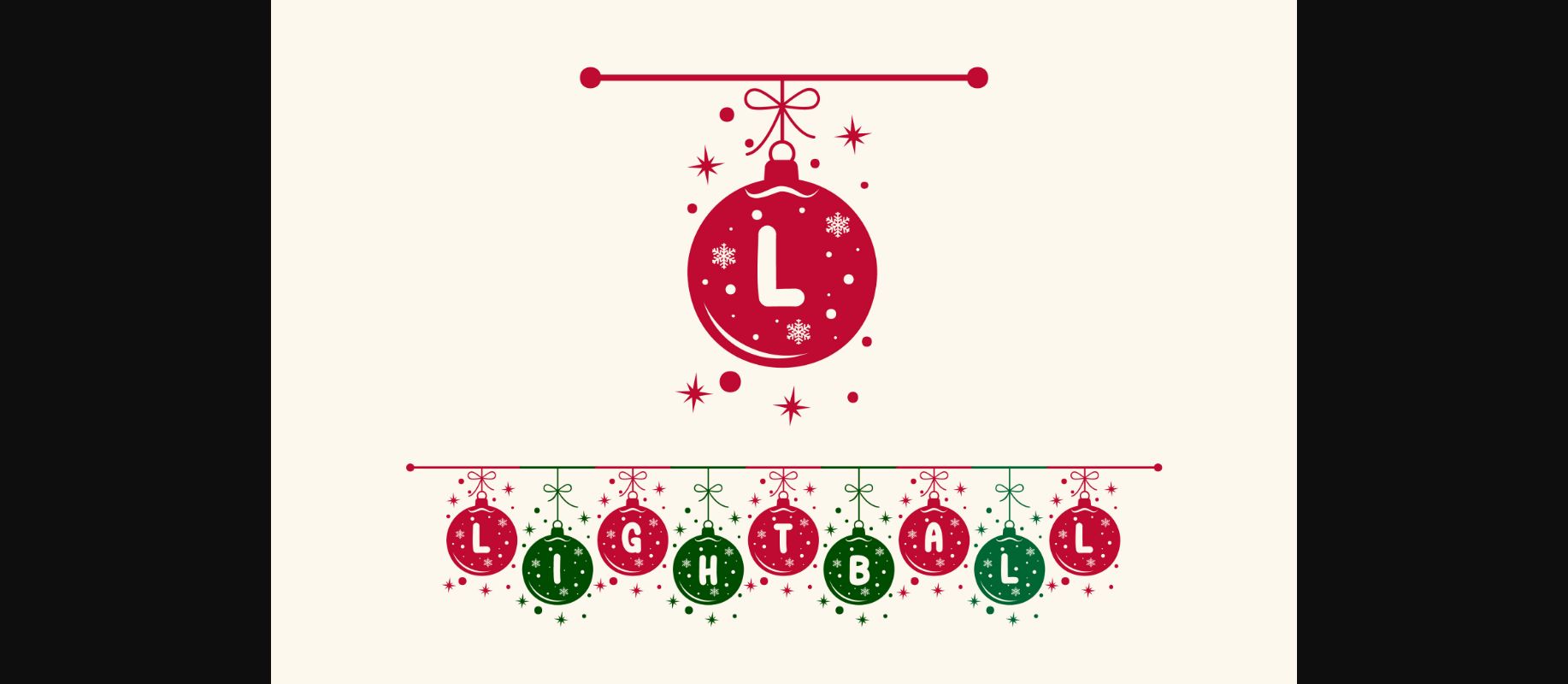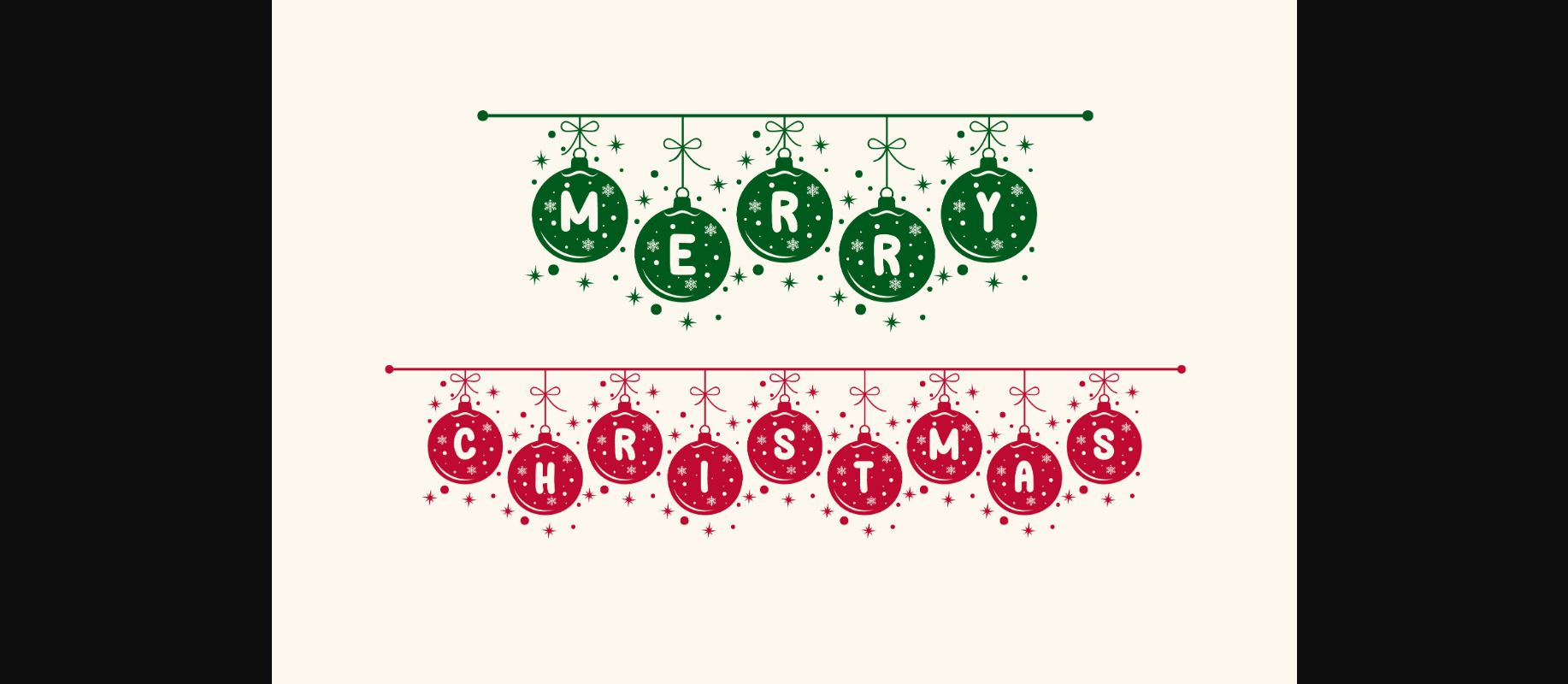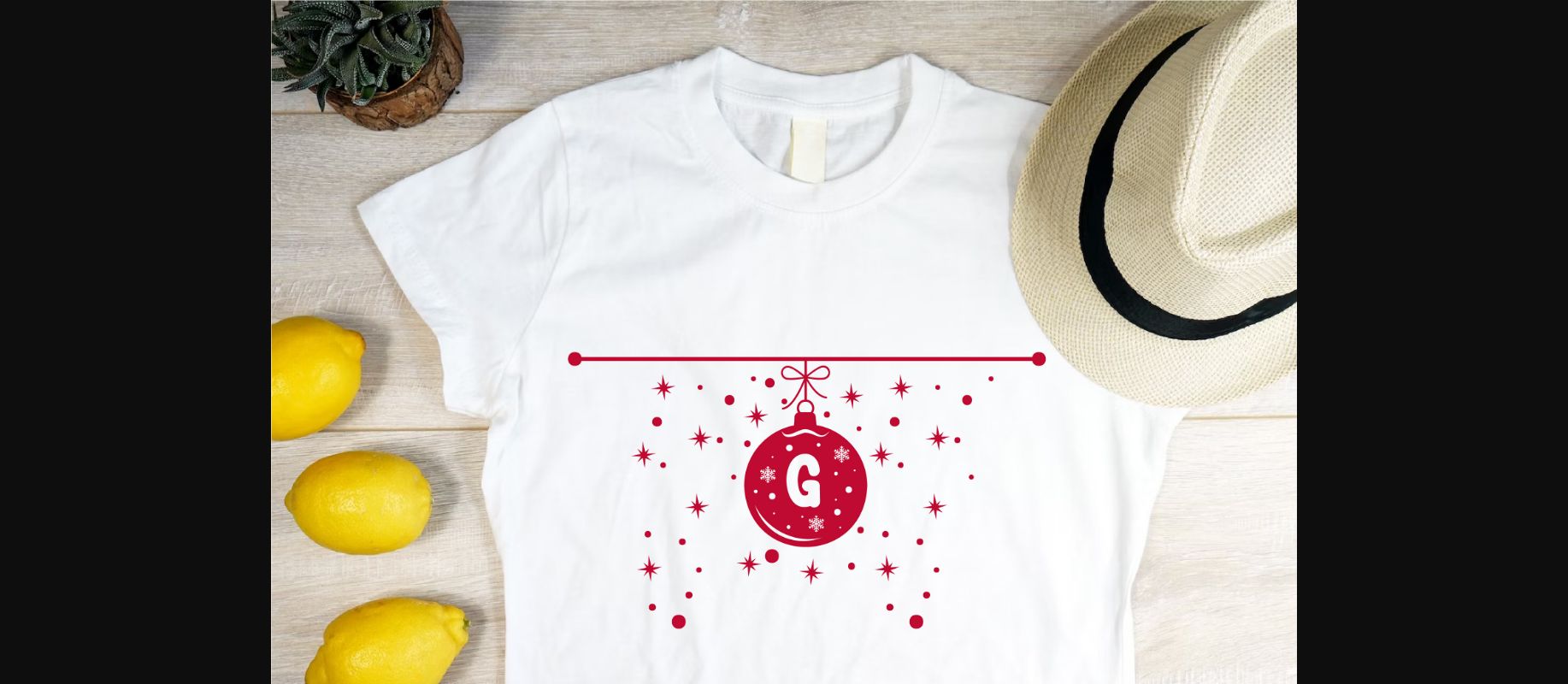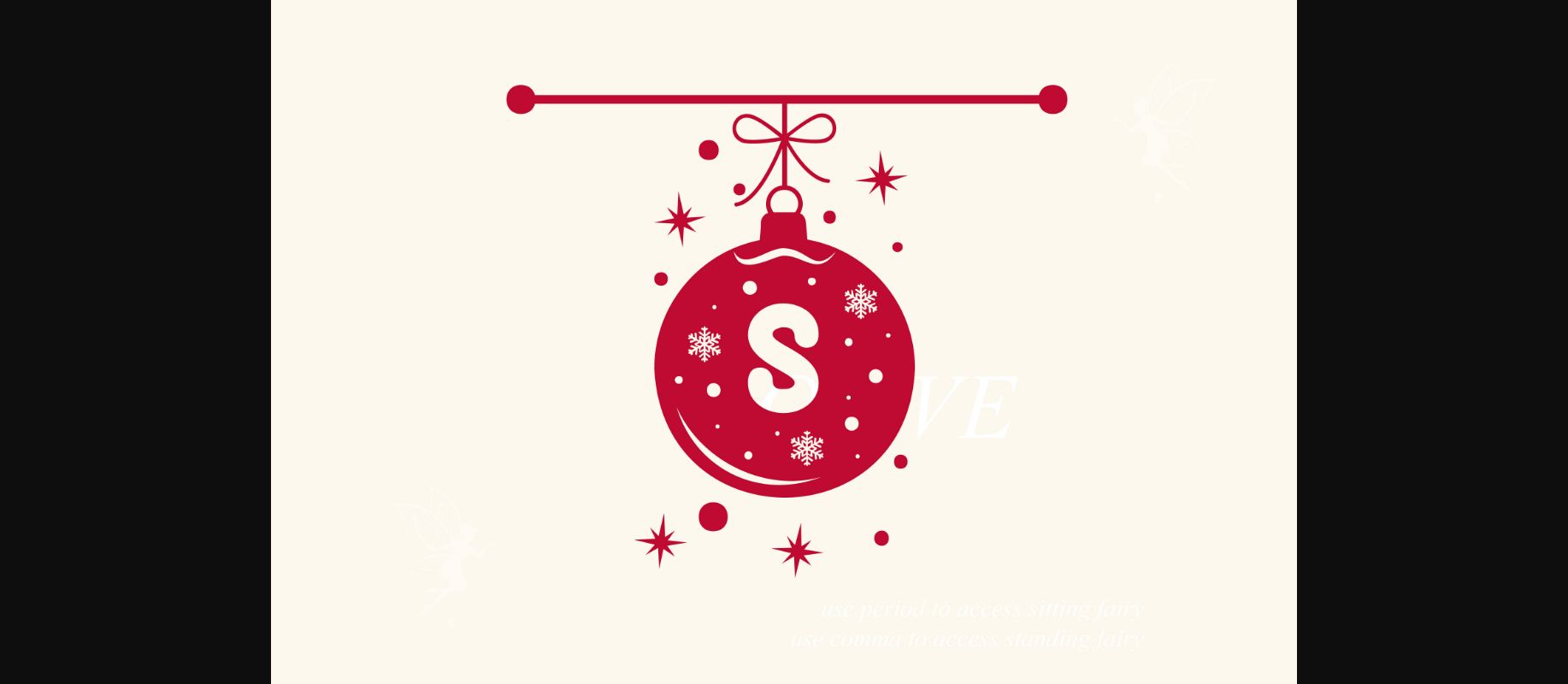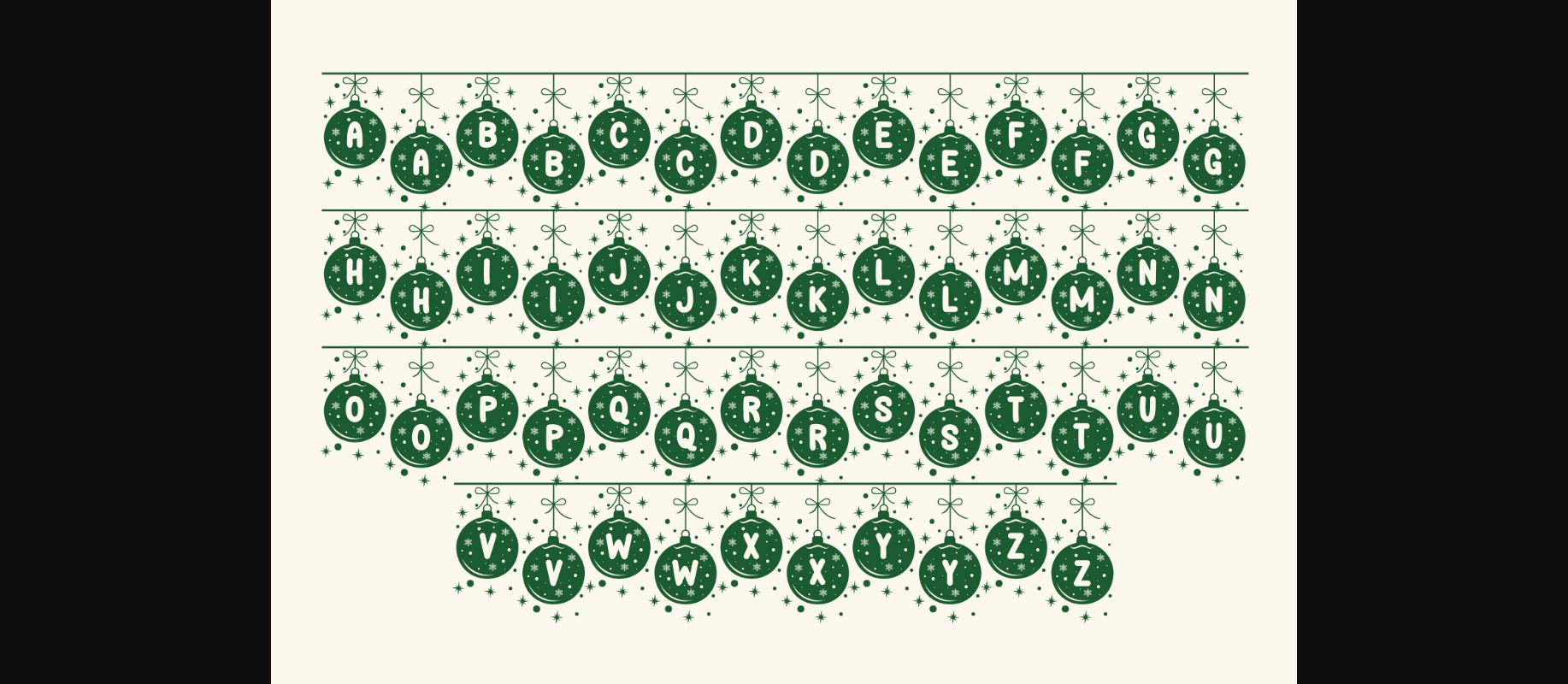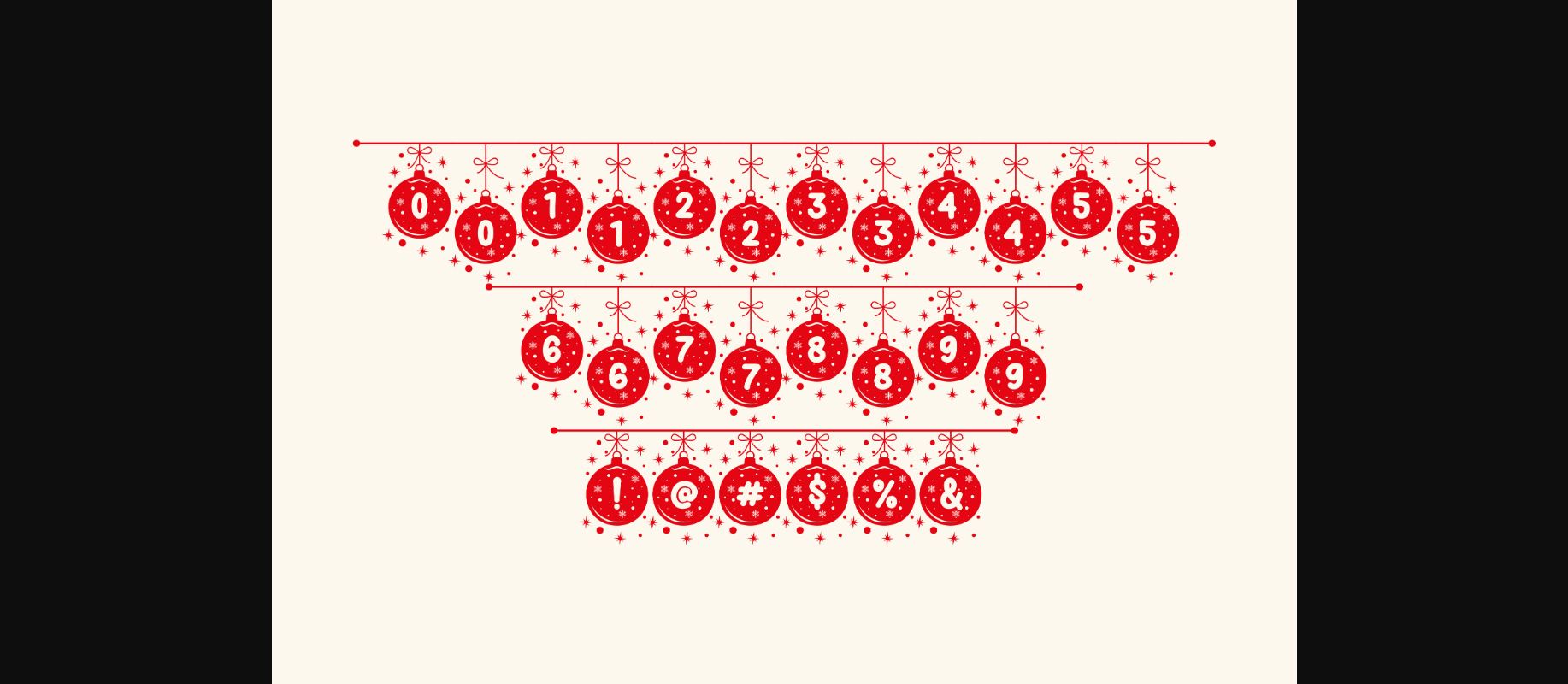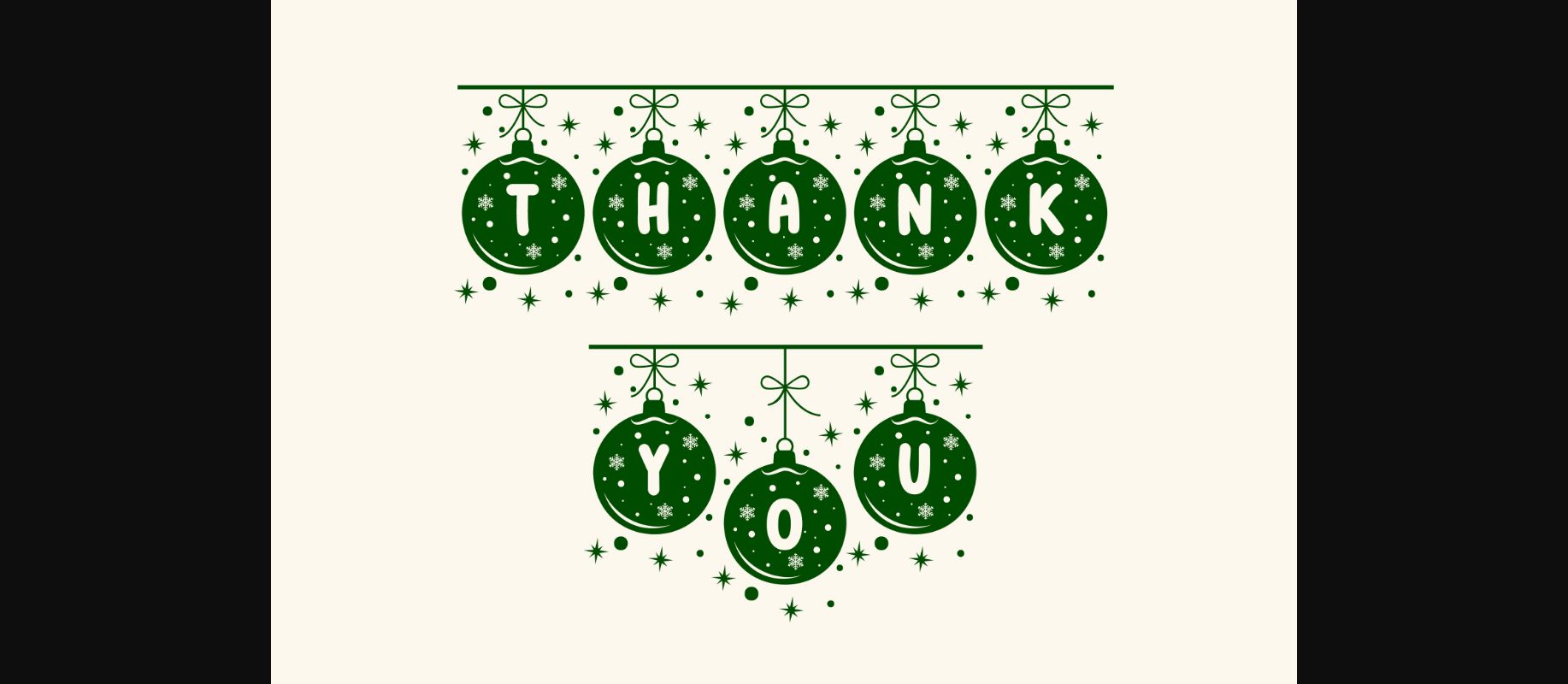
Lightball String Font
About Lightball String Font
Lightball String is cool and unique decorative display font perfect for Christmas. This font is inspired by christmas light balls, which makes it suitable for creating cute holiday t-shirts, stickers, cover books, children’s books, social media posts, and much more!